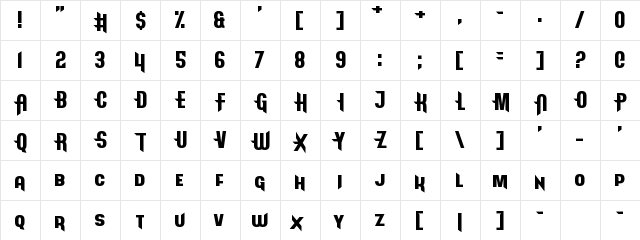
Arcapulse Regular
Design Context for Arcapulse Typeface
Arcapulse is a composed and adaptable typeface that performs quietly and consistently across a wide range of design contexts.